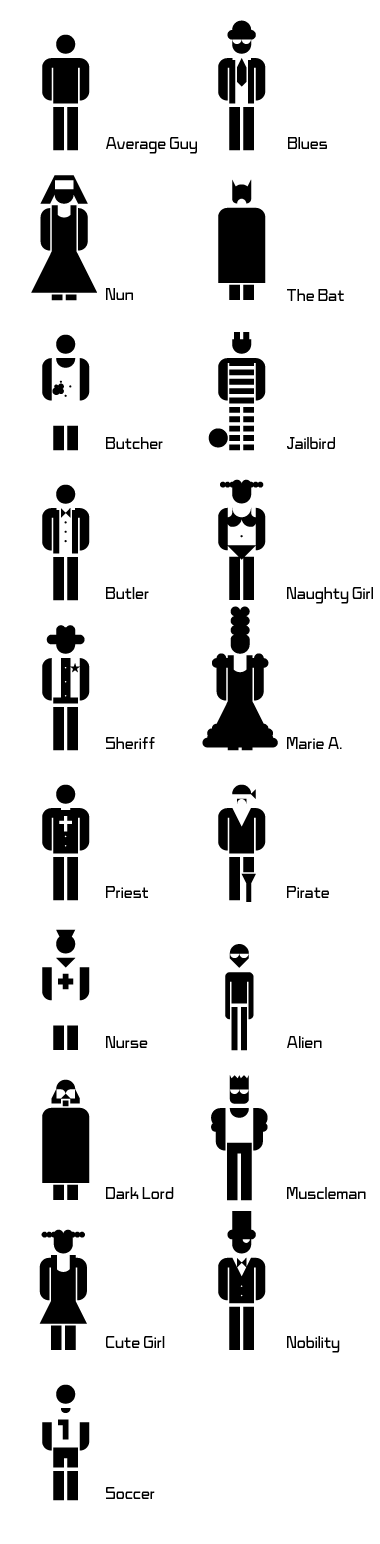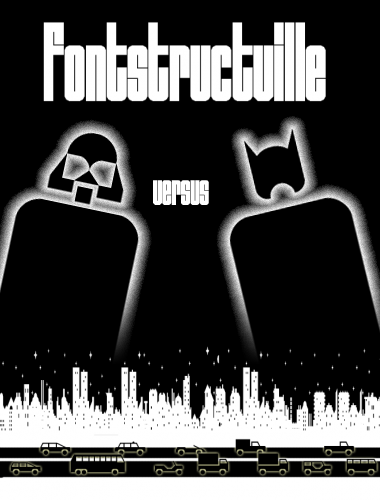
Very smart pictograms!
While Omino pictofont succeeded in creating a lot of actions, this one provides people with personality(even if the pirate reminds me Santa Claus for some reason :).
@afrojet: ha ha, great combination of Picto People with Nachahmung and Cars: we just need some buildings and FontStructLand is ready!
@Em42: We do have buildings. Kix made 'em with Skylines. The town also has basic traffic laws as seen in Road Signs. I trust that everyone who went down to the Funk King's dealership and picked up one of his Fast Cars will obey those laws.
All the positive feedback is well deserved. Enjoy.
As for additional people: Graphic Designer, FontStructor, Pied Piper, American Idol, Teacher, Ghost Buster, Rocketeer, V, R2D2, Doctor, Frankenstein, A. Einstein, The Hulk, Inspector Gadget, Mr. T, etc.
cool, using all those fonts together in one sample!
now some inspirations for additional characters:
jimi hendrix, the hulk, porn actor, graffiti artist, postman, hellboy, stephen hawking, E.T., lucky luke, rocky, Dirk Nowitzki, god and may marilyn manson.
Em42: Holy Attack of the Fonstruct Clones, Batman - who would win this epic battle? More importantly, have you reserved the movie rights yet? Somebody better Fonstruct us a Bat-Signal pronto or the Sith Lords will have us all creating script fonts using only the triangle brick.
Congratulations on the Featured Download, Saber! The characters have such subtle nuances. I love what's going on in this page. It's nice to see all the fonts getting along together. If I had the time, I would totally animate this - the Dark Knight vs. the Dark Side.
i just wanted to let you know that I already tried some of your ideas. unfortunately I wasn't really happy with the results so far but I'm working on it and I'll give it another try once I can find some spare time. I really liked all of your suggestions, especially Stephen Hawking. :>
Wow... This is a cool font. I think you should try, like suggested previously, some more villains. Darth Maul, Dr. Eggman, Doc Oc, Maybe animals, such as tigers, dragons, lions, and so on. I also think that trying to do someone like yourself would be an... interesting idea.
Now do the Graphic Designer. ;)
Voted a 10 for the concept,
the incredible way of bricking and for the matching of characters.
chapeaux!
While Omino pictofont succeeded in creating a lot of actions, this one provides people with personality(even if the pirate reminds me Santa Claus for some reason :).
@afrojet: ha ha, great combination of Picto People with Nachahmung and Cars: we just need some buildings and FontStructLand is ready!
Forgot to add people though..
If you do have any ideas for charakters that could be done please tell me.
As for additional people: Graphic Designer, FontStructor, Pied Piper, American Idol, Teacher, Ghost Buster, Rocketeer, V, R2D2, Doctor, Frankenstein, A. Einstein, The Hulk, Inspector Gadget, Mr. T, etc.
cool, using all those fonts together in one sample!
now some inspirations for additional characters:
jimi hendrix, the hulk, porn actor, graffiti artist, postman, hellboy, stephen hawking, E.T., lucky luke, rocky, Dirk Nowitzki, god and may marilyn manson.
:P
@Unigirl: I reintroduced some picto people in your lovely artwork, and it came out as a monster-disaster movie poster: I hope you like it!
FontStructville: "Stay a while, stay forever!"
Here's another one:
Fontstruct goes Blues Brothers!
Here it is:
Fontstruct goes Blues Brothers!
Villians and mean/evil people.
Hitler not being one of them
COOOLLLLL.
A good font!
Marie A. looks like Marge Simpson
this is very cool
Ah yes, Charlie Chaplin.
Wrong font...